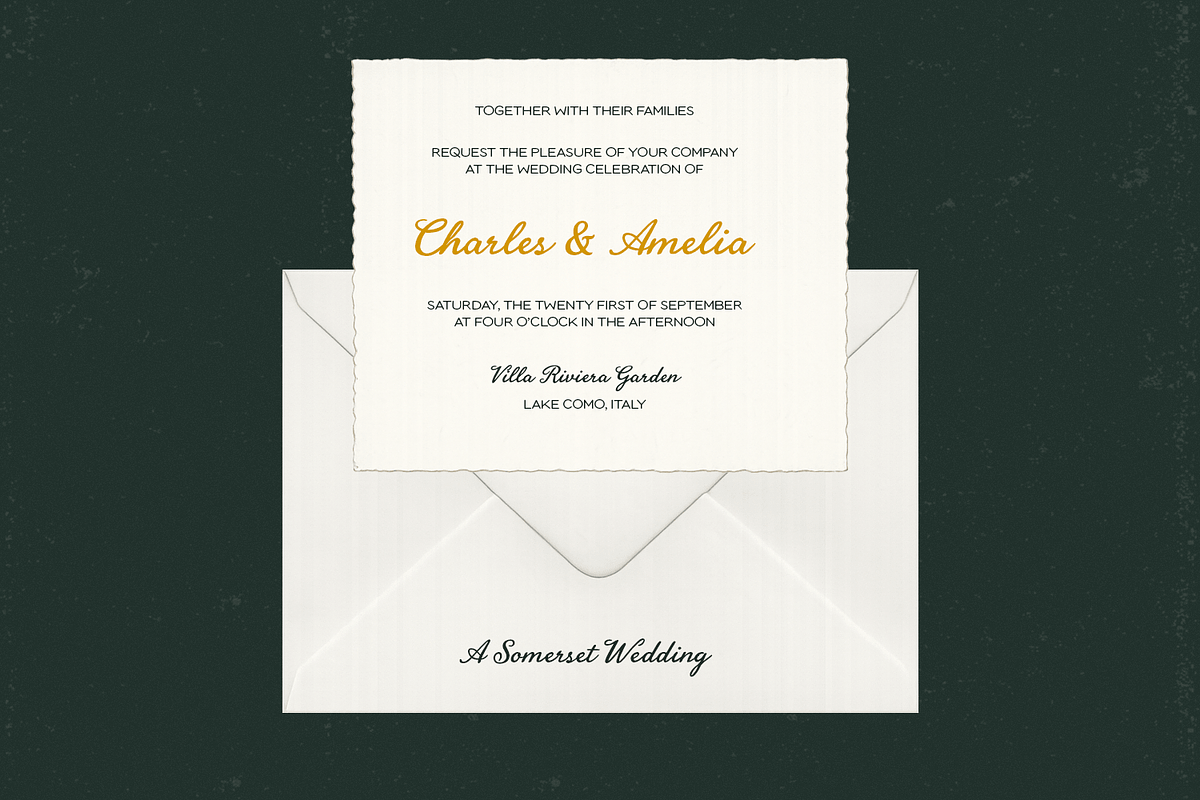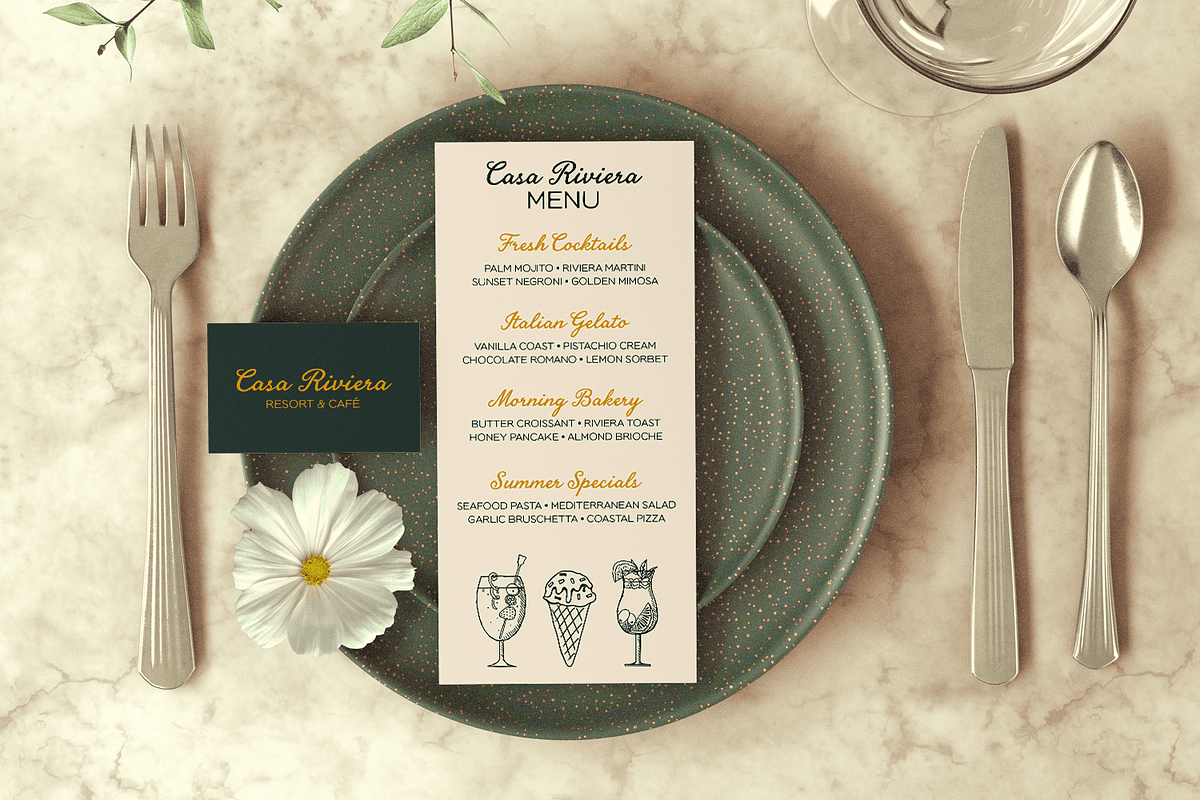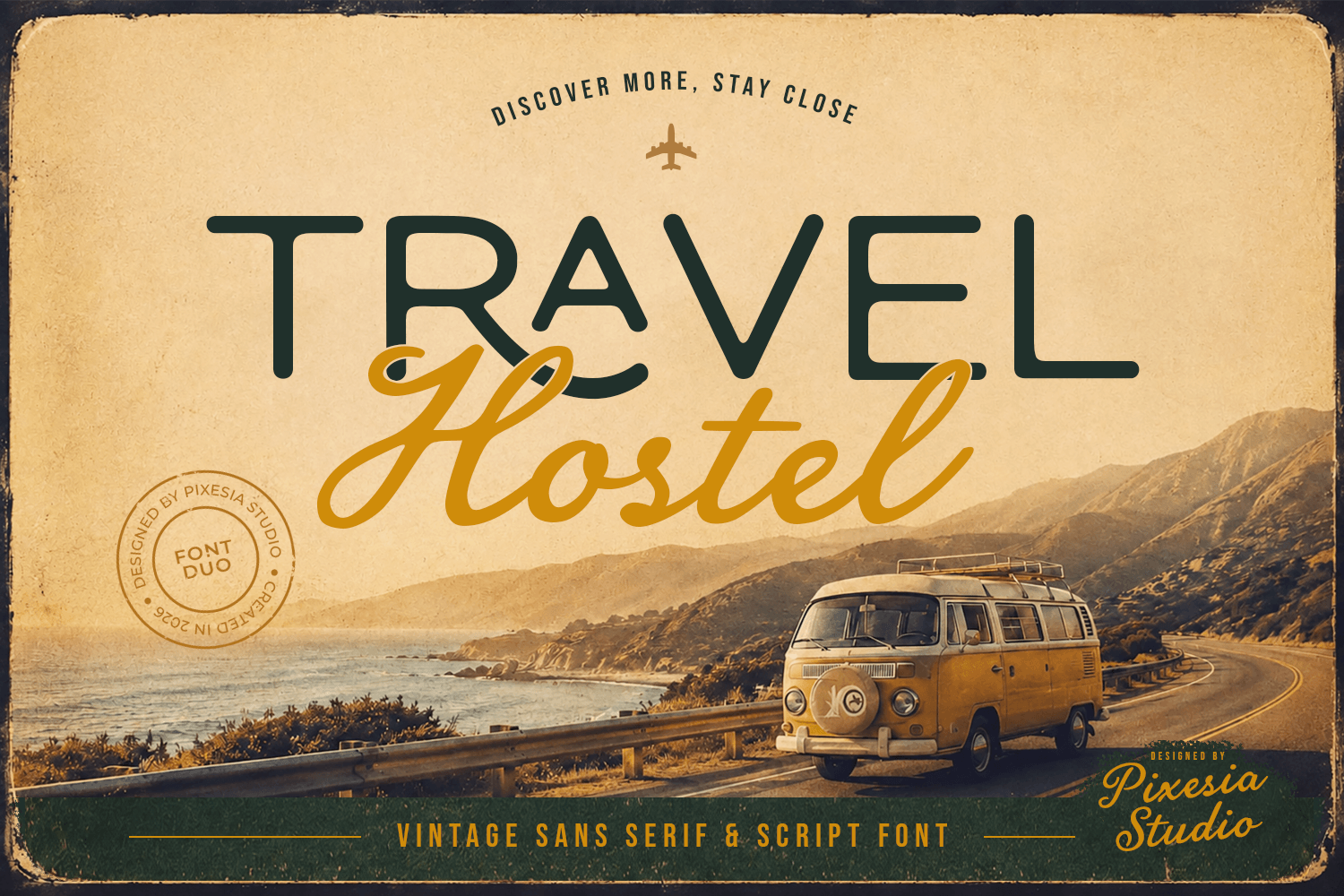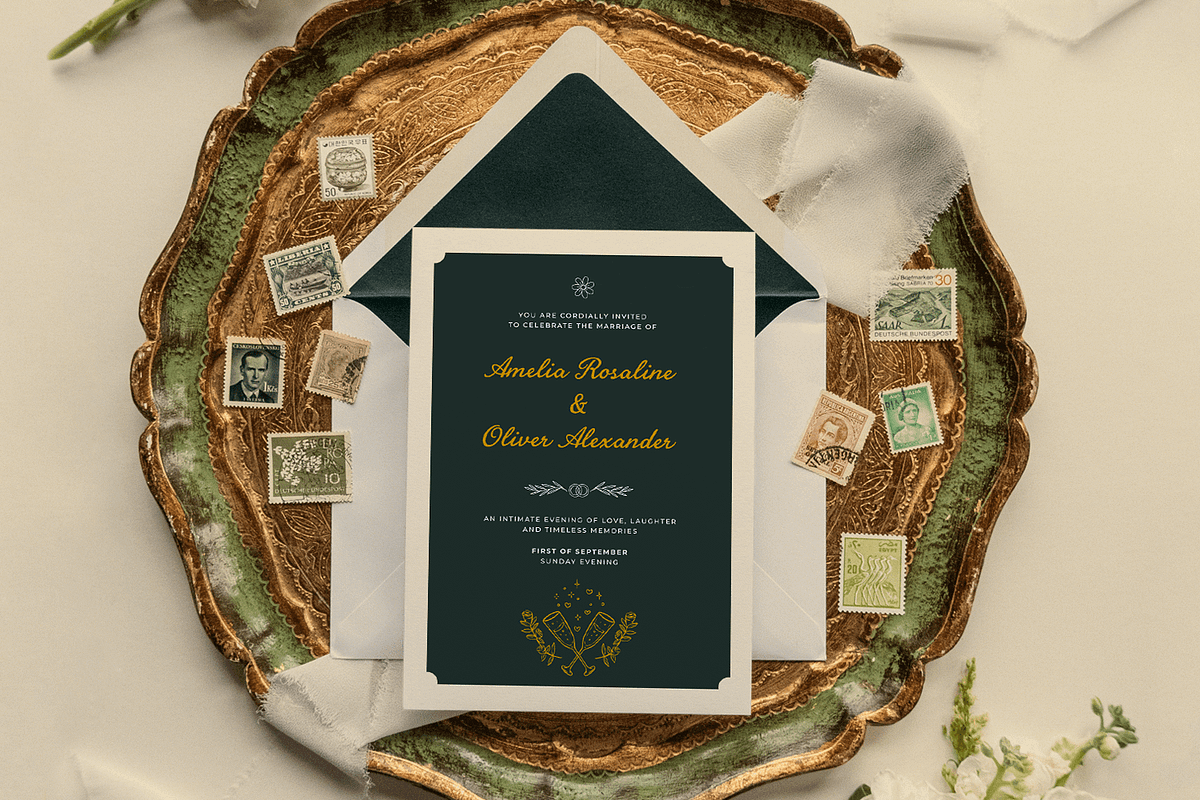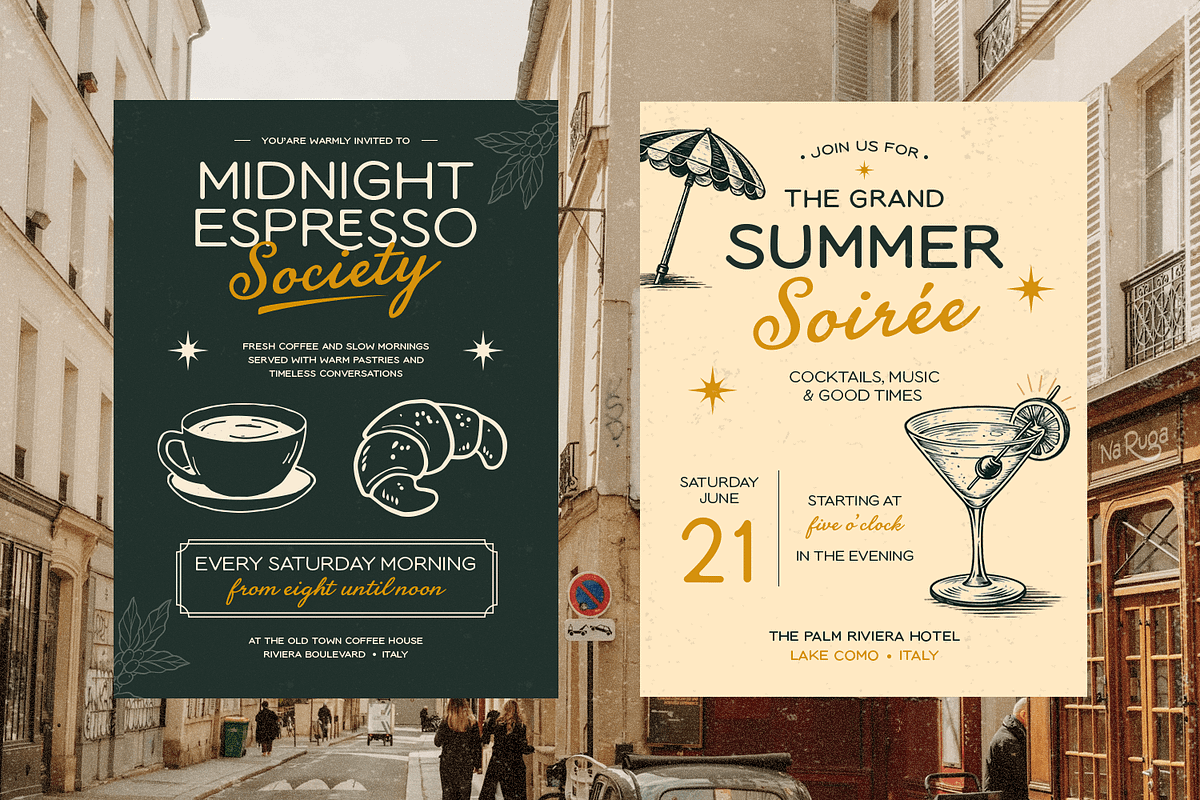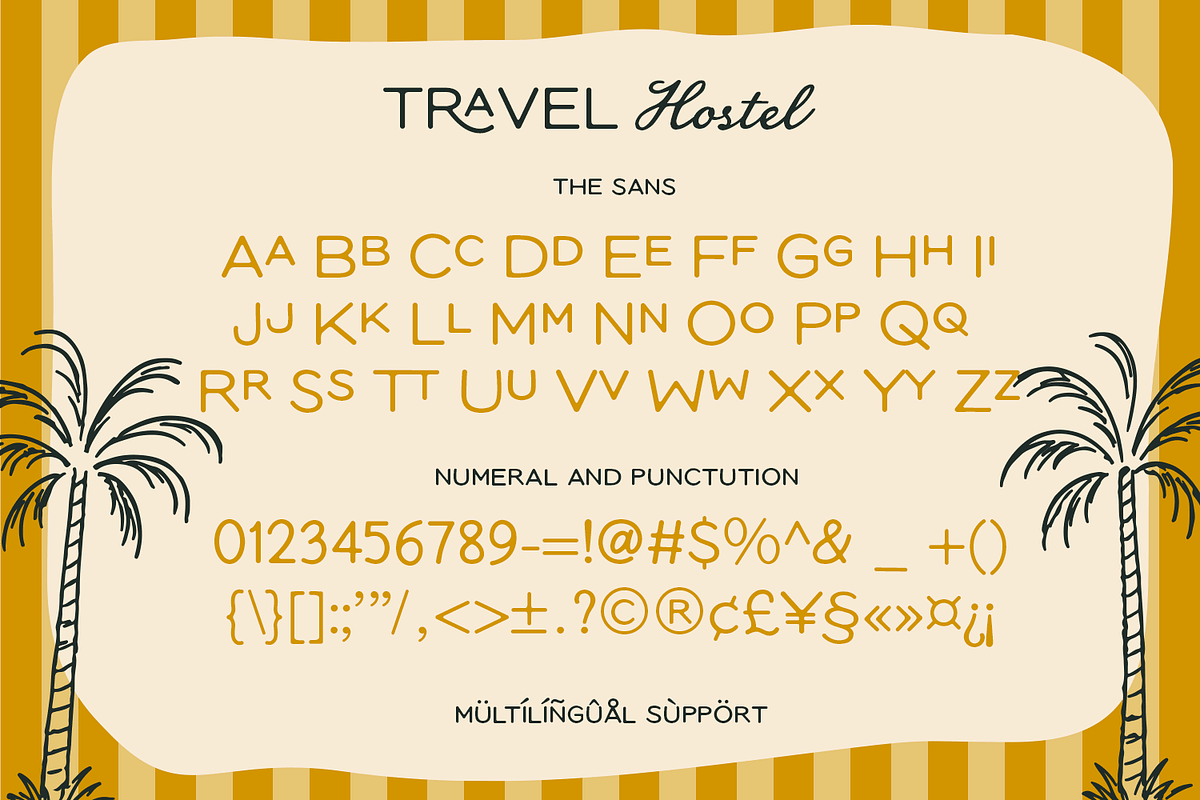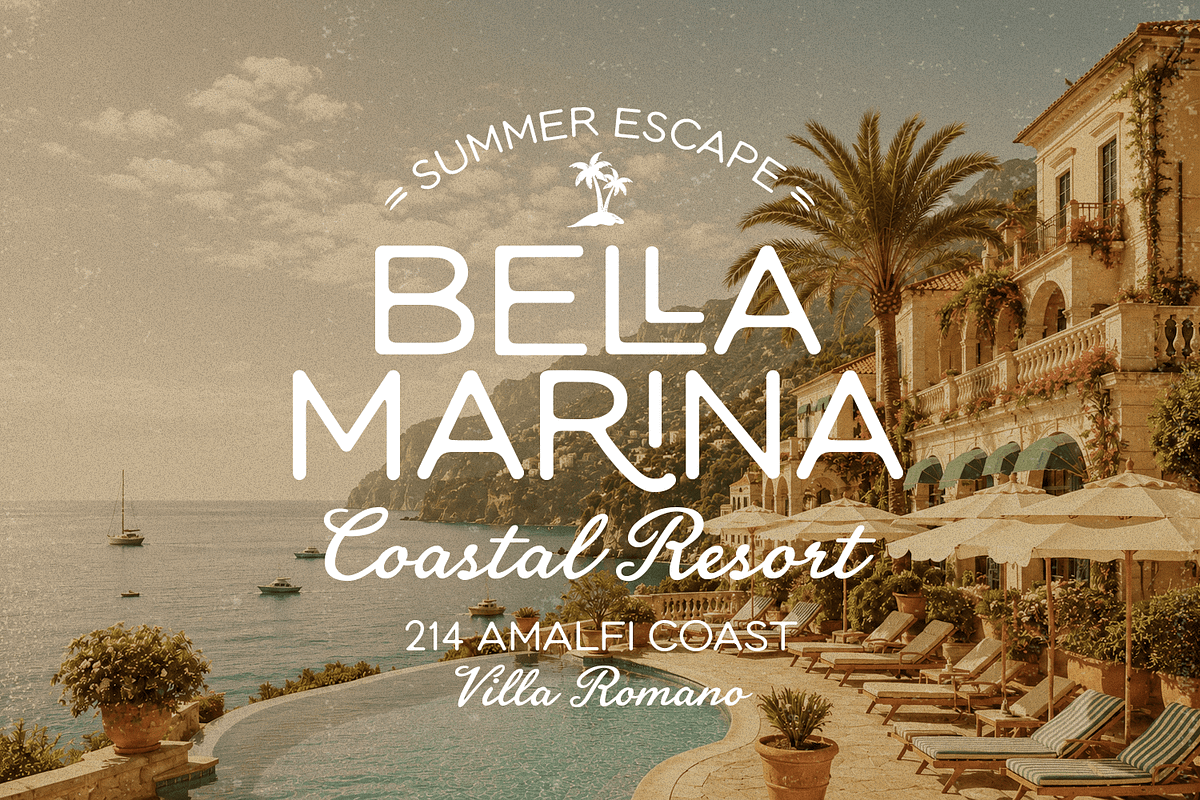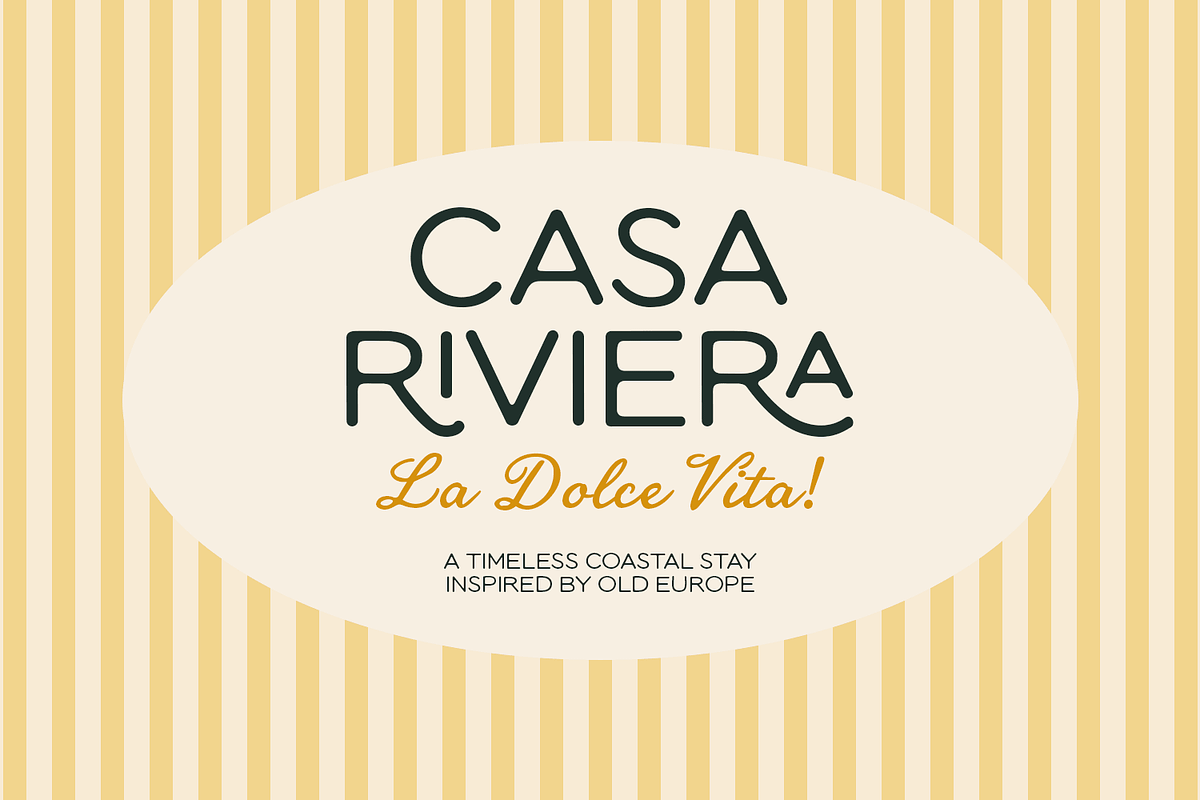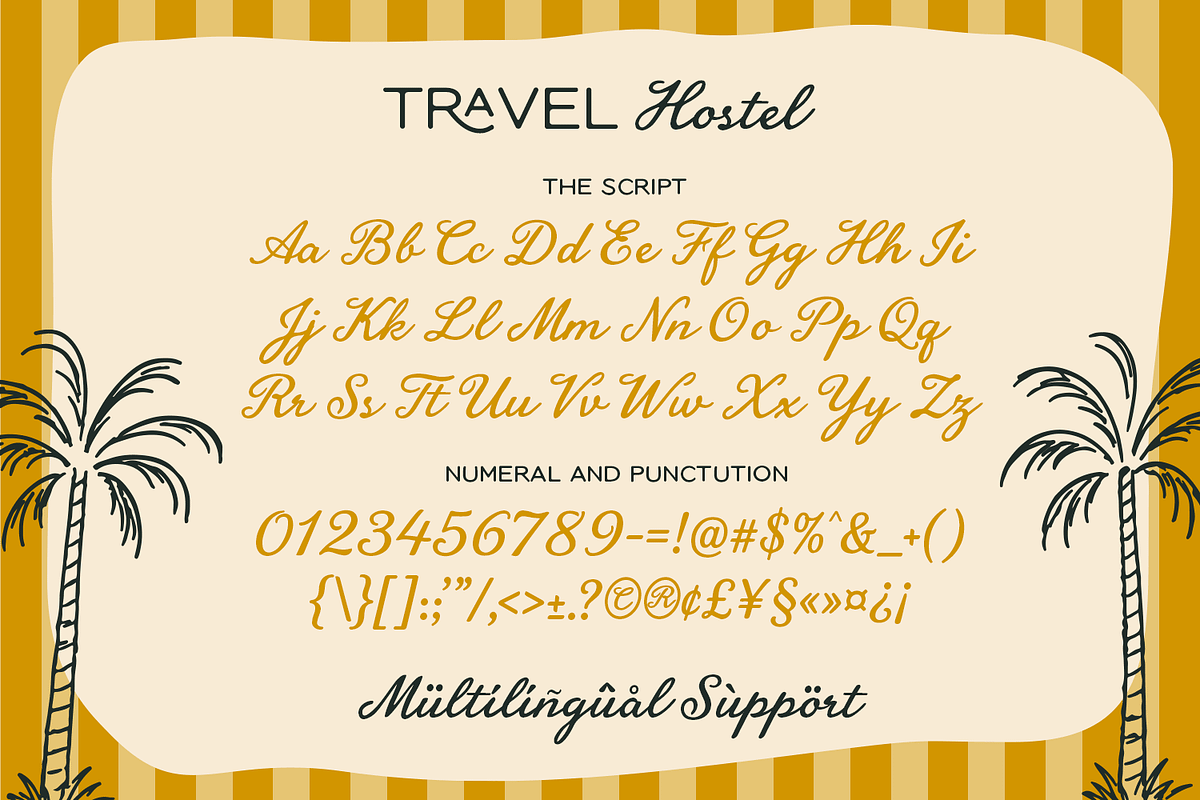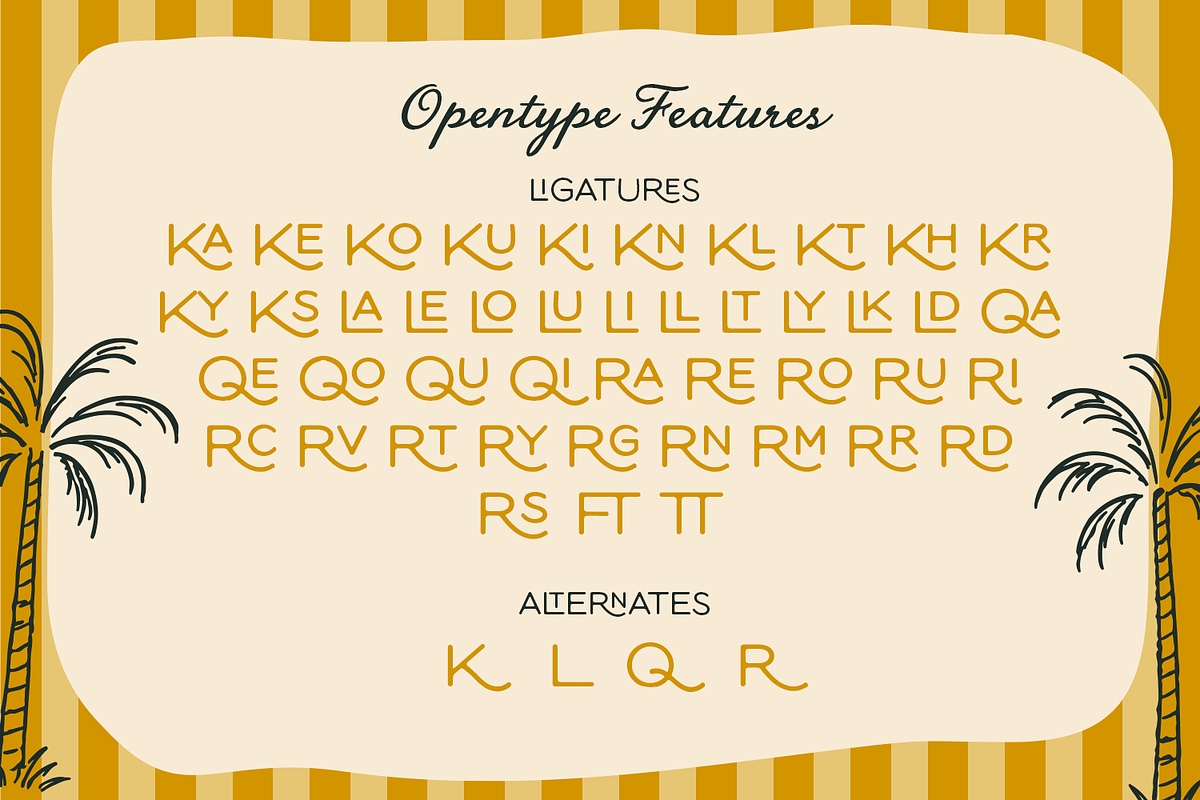
Travel Hostel - Vintage Font Duo
Introducing Travel Hostel - Vintage Font Duo
Travel Hostel is a vintage-inspired font duo that combines a sans serif with a stylish handwritten script to create a distinctive retro travel aesthetic. Featuring strong, clean letterforms paired with expressive flowing strokes, this typeface captures the spirit of road trips, adventure, exploration, and nostalgic travel. Its versatile combination creates an authentic and memorable look that works beautifully across both classic and contemporary designs.
Perfect for travel branding, hostel logos, tourism campaigns, posters, postcards, apparel, merchandise, packaging, signage, and social media graphics, Travel Hostel brings a warm and adventurous personality to every project. Whether you're creating a vintage travel identity or designing eye-catching promotional materials, this font duo provides the perfect balance of boldness, character, versatility, and nostalgic charm.